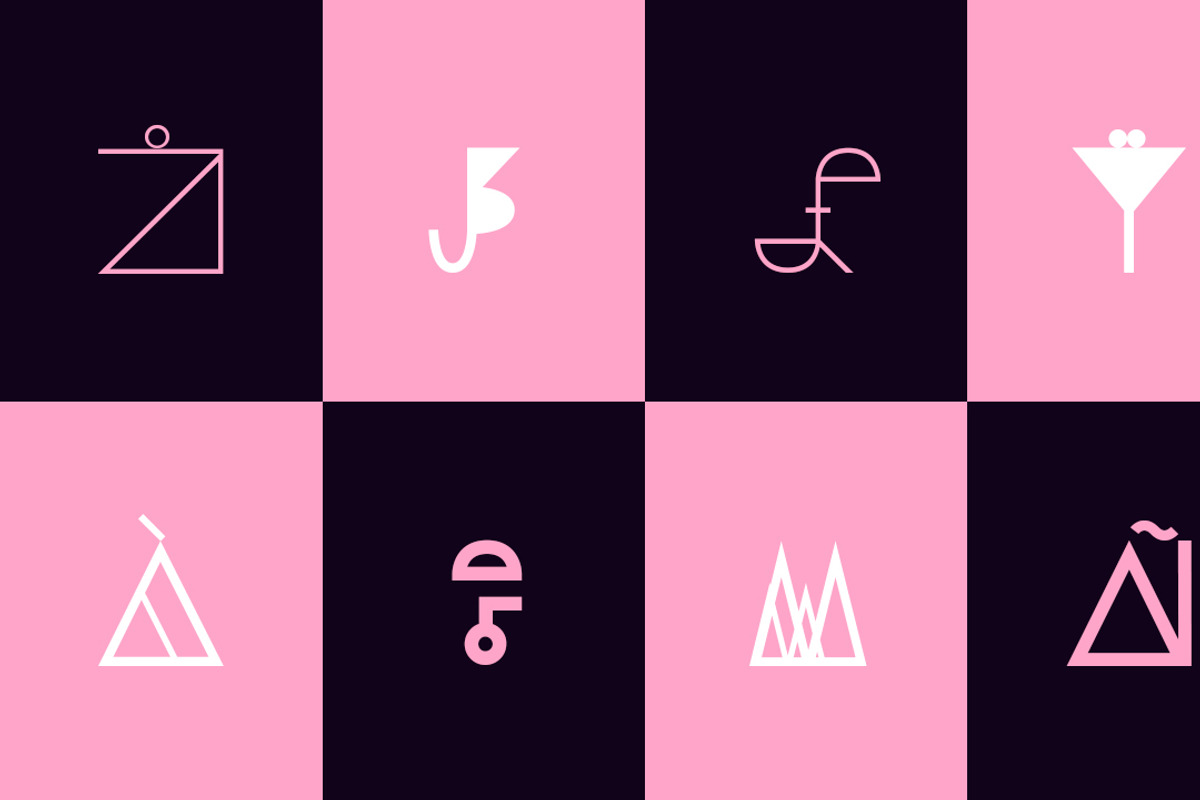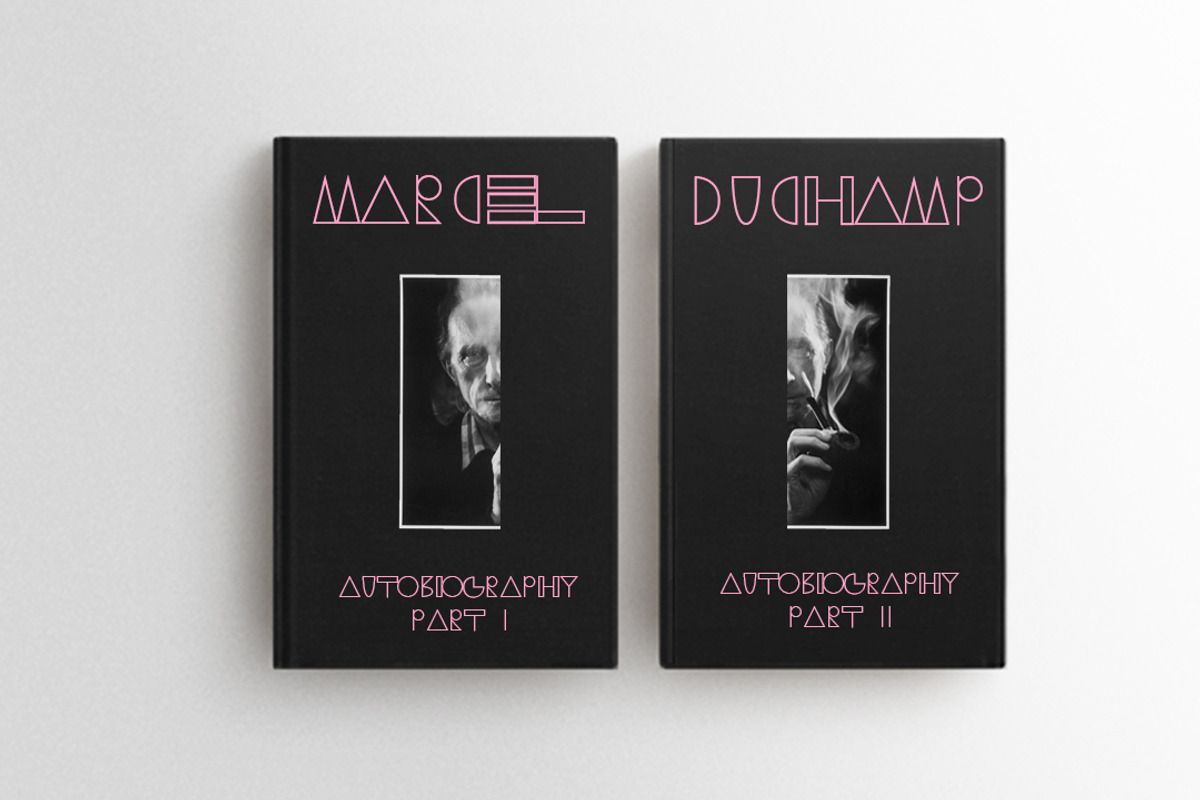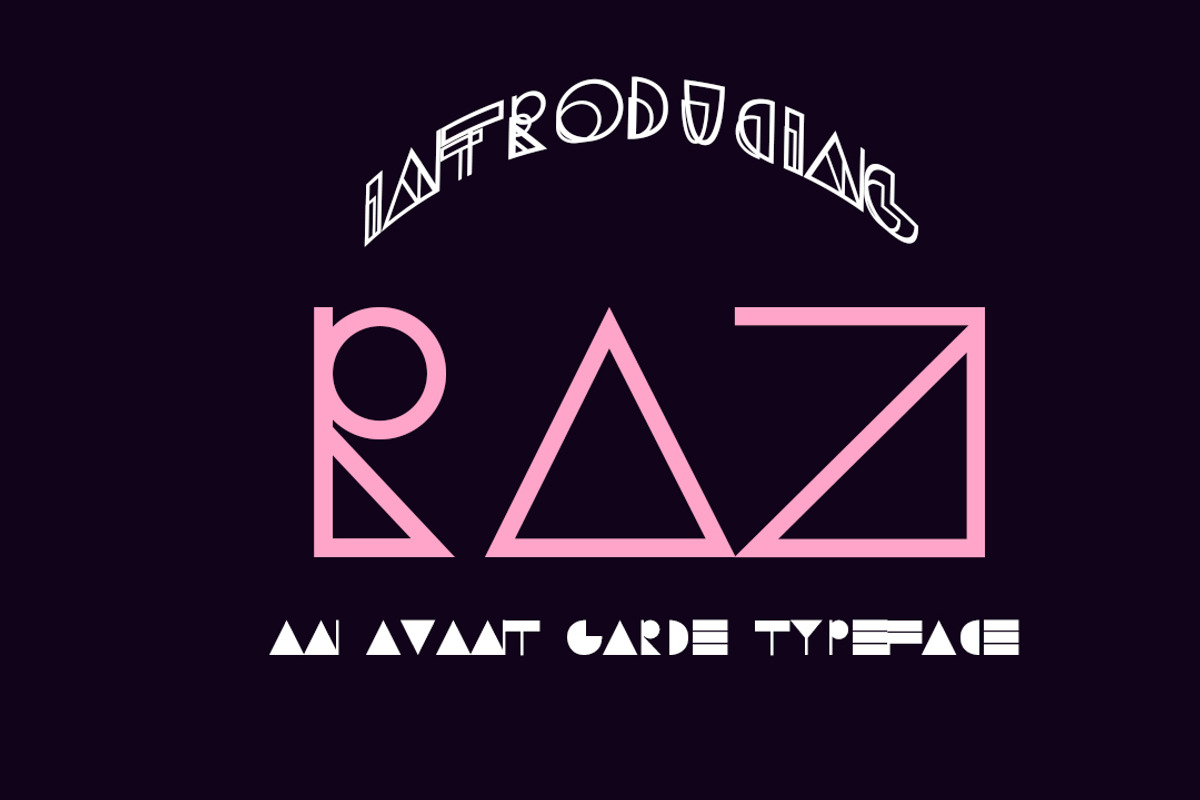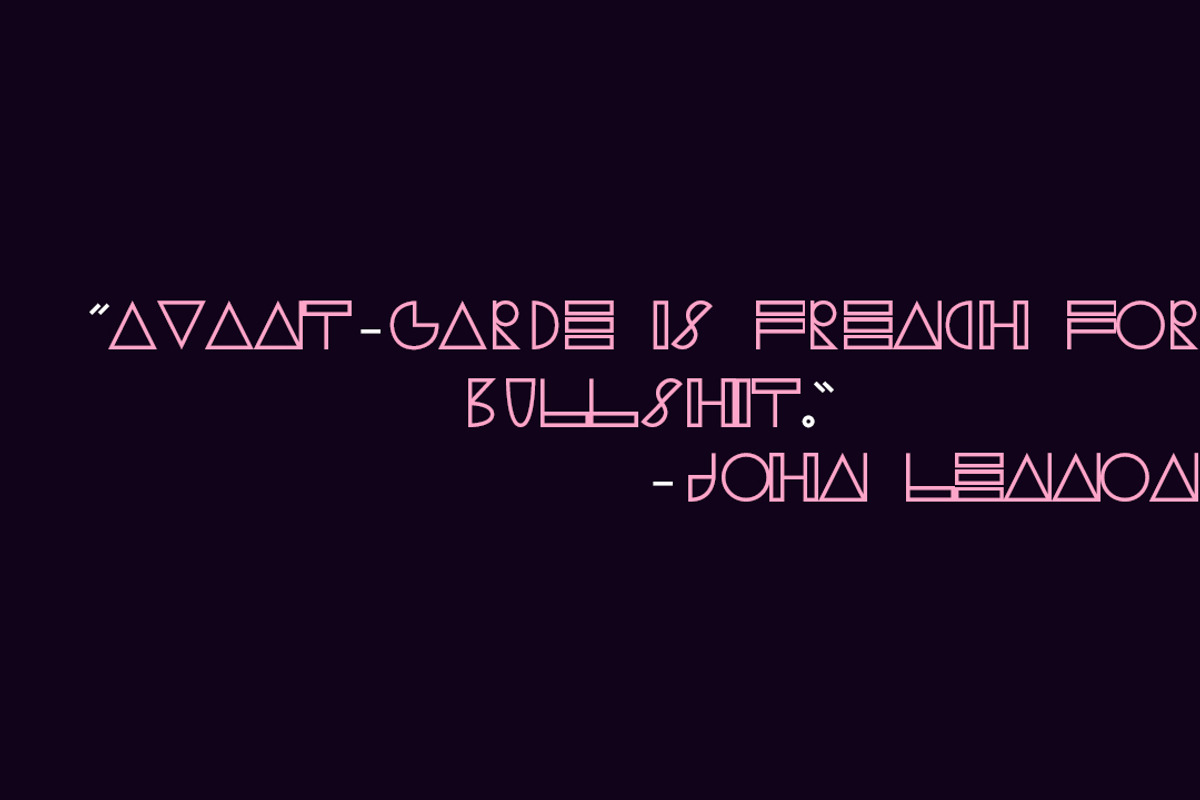
RAZ Typeface
RAZ Typeface by Alpha Mike Foxtrot is a font selected for branding, posters, packaging, typography.
- RAZ includes 3 versions, 3 weights and has over 300 glyphs.
Why RAZ Typeface is worth a look
RAZ Typeface by Alpha Mike Foxtrot fits naturally into Branding, posters, packaging, typography.